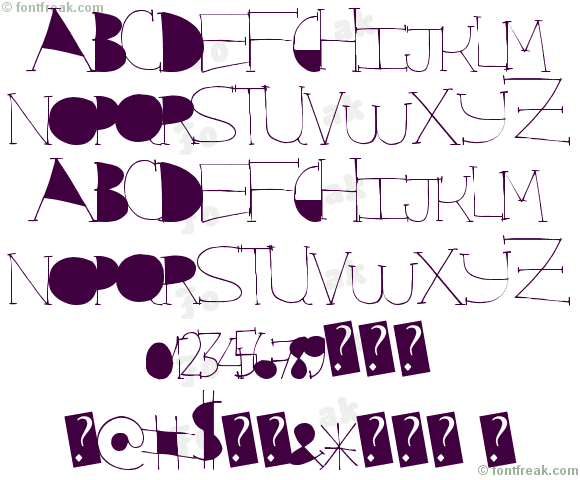
StarRising
Introducing the StarRising font by XEROGRAPHER FONTS, a unique display typeface that captures attention with its striking visual appeal. This font, released in 2012, stands out for its playful yet sophisticated design, making it a versatile choice for various creative projects. As a display font, StarRising features bold, irregular strokes that add a dynamic quality to text, while maintaining a sense of balance and readability. The interesting contrast in stroke weight enhances its character, making it perfect for eye-catching headlines and titles.
The spacing in StarRising is intentionally designed to create an airy feel, allowing it to breathe on the page while still drawing the viewer's eye. Its decorative elements, including whimsical curves and unexpected angles, infuse a sense of fun and creativity, making it an ideal choice for projects that call for a modern, artistic touch.
StarRising is particularly well-suited for wedding invitations, where its unique style can convey a sense of elegance and individuality. It also shines in movie posters, where its boldness can capture the essence of a film's theme. Additionally, restaurant menus and promotional materials for creative businesses benefit from the font's ability to stand out while remaining legible.
In a sea of generic fonts, StarRising stands out due to its unique blend of playful design and professional quality. This font not only enhances the visual impact of any project but also allows creators to express their individuality and style.